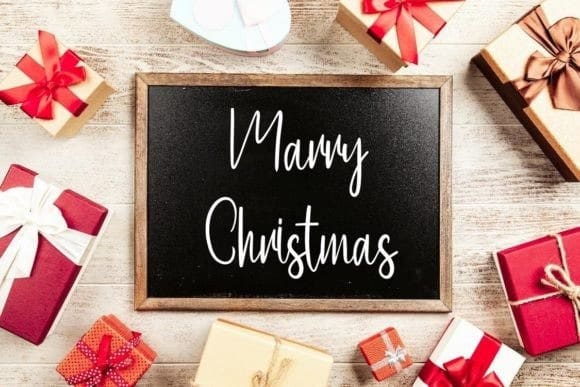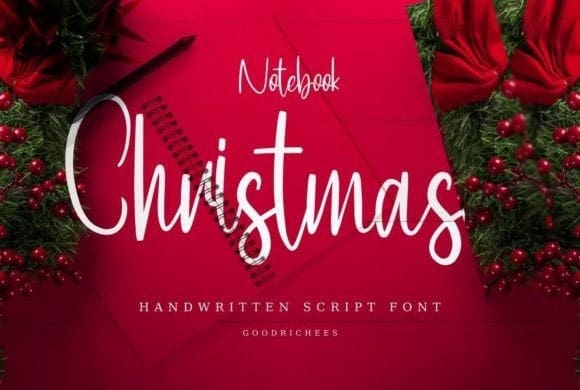
Notebook Christmas Font
Notebook Christmas Font is a sweet and delicate handwritten font. Dainty and joyful, this font will be ideal for writing wedding invitations, cards, or any other design that may need a romantic, personalized touch!